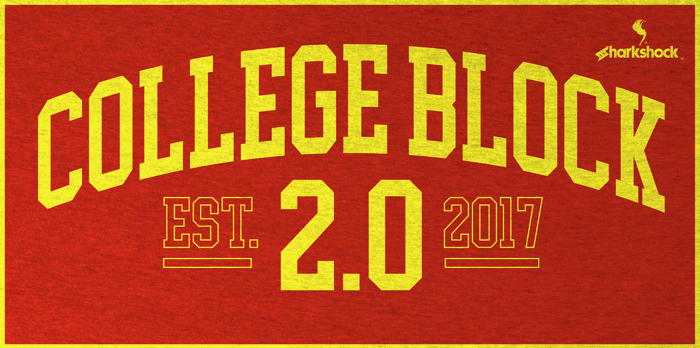
College Block 2.0 Font
by Sharkshock
College Block has been revamped and joins the 2.0 class. The letters are about 30% taller, just waiting to be arched and thrown on a University sweater. Several of them, along with European accents have been redesigned completely. Cyrillic makes its way into this font along with many other diacritics for international support. Use College Block 2.0 for a t-shirt, logo, or web graphics.